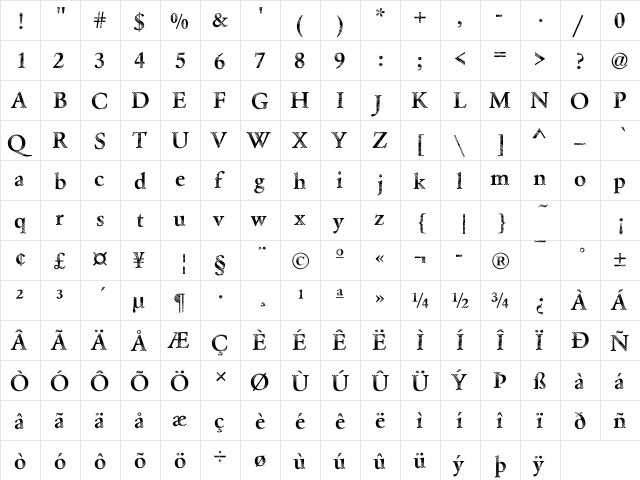
Garamond23 Becker Regular
Design Context for Garamond23 Becker Typeface
Garamond23 Becker is a composed and adaptable typeface that performs quietly and consistently across a wide range of design contexts.